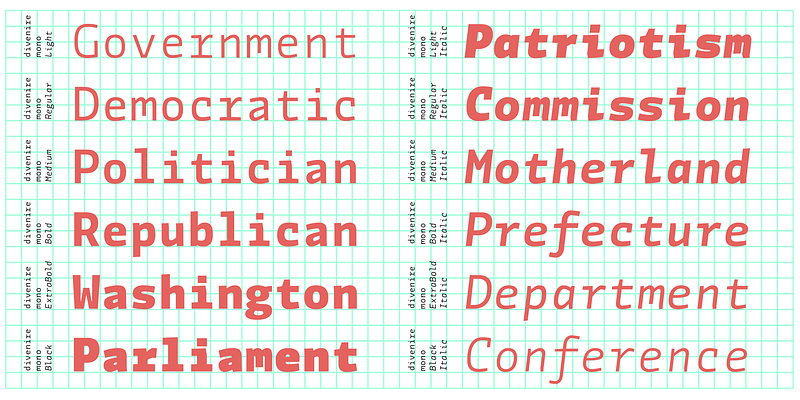
Divenire Mono Font Free Download is a sleek and modern monospaced typeface designed with clarity, balance, and a minimalist aesthetic in mind. It’s an excellent choice for coding environments, tech branding, data visualization, and any design that requires a structured and uniform typographic look.
With consistent character widths and a clean, geometric style, Divenire Mono enhances readability while maintaining a contemporary, design-forward appearance. Whether you're creating developer tools, terminal UIs, infographics, or tech-savvy marketing content, Divenire Mono Font Free Download provides a polished and professional feel.
This typeface also shines in creative layouts, where monospaced fonts can add a sense of rhythm, order, and intentionality. Its modern personality pairs well with both bold graphic elements and minimalist design systems, making it a versatile tool for any digital creator.